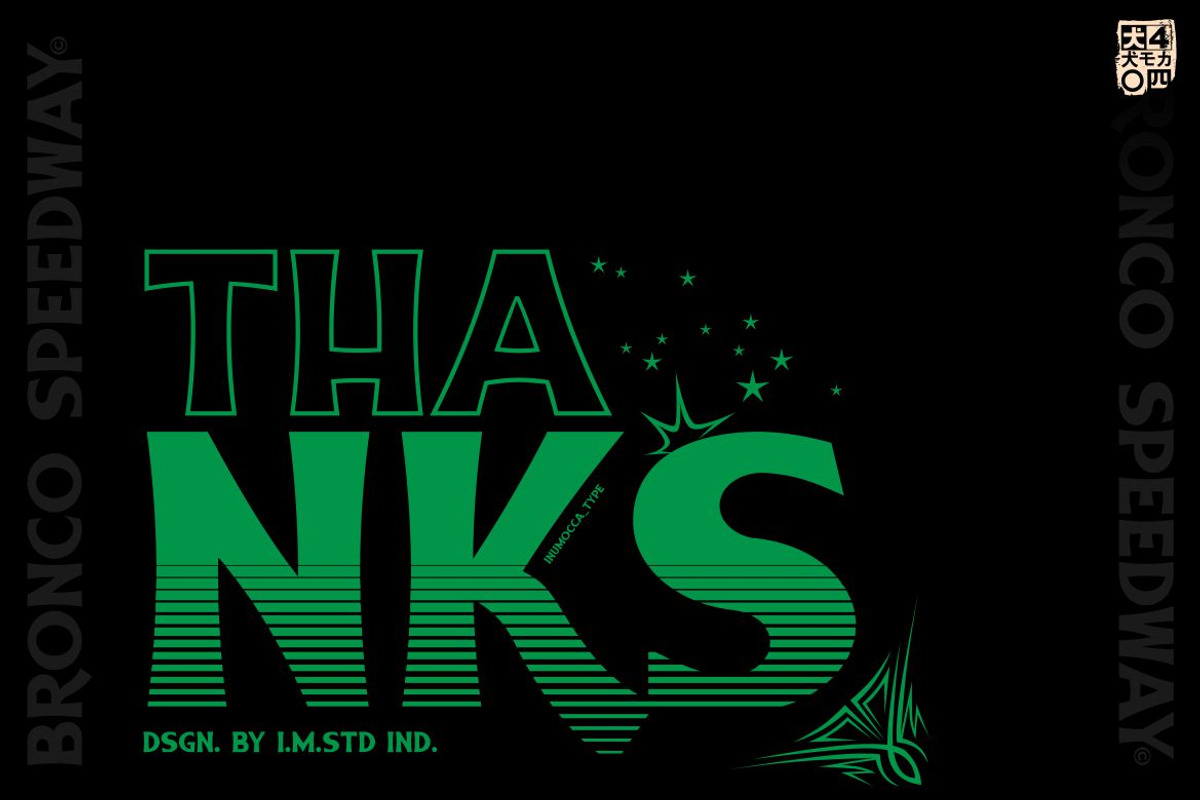
BRONCO SpeedWay
BRONCO SpeedWay Family Font
BRONCO SpeedWay serif font, bold and strong font come from a classic packaging, vintage lettering you can used to your project ,like a poster, Blog, Website, tshirt and any other fun projects you are working on. ENJOY with GLYPHS
Available with family series
- BRONCO SpeedWay
- BRONCO SpeedWay Outline
- BRONCO SpeedWay gradient
- Unique glyphs
- Multilingual Characters
- UPPERCASE
- Numeric
- Symbol
- Punctuation Character